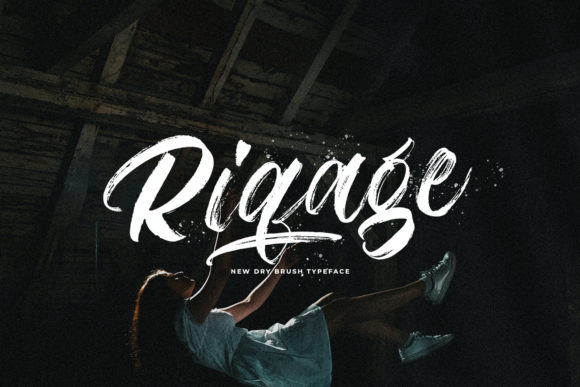
Step into the realm of elegance and grace with Riqage Font, a captivating script font family that exudes a uniquely personal touch. StringLabs, the creative minds behind this masterpiece, have crafted each letter with meticulous care, ensuring that every stroke and curve dances with authenticity and charm. As a script font, Riqage possesses an inherent flow and rhythm that mimics the natural movement of handwriting, evoking a sense of intimacy and connection. With its modern and playful spirit, this font enlivens any project with a touch of whimsy and sophistication.
Immerse yourself in the versatility of Riqage, a font that effortlessly adapts to a myriad of creative endeavors. Whether you're designing logos, crafting invitations, or adding a personal flair to your social media posts, Riqage seamlessly blends with your vision. Its graceful characters lend an air of sophistication to wedding invitations, transforming them into cherished keepsakes. Unleash your creativity and craft eye-catching posters and flyers that demand attention, leaving a lasting impression on your audience. With Riqage as your artistic companion, the possibilities are boundless.
Unleash your inner artist and let Riqage elevate your designs to new heights. Its charming imperfections and natural flow breathe life into any project, capturing the essence of handwritten beauty. Experience the joy of creating personalized signatures that exude elegance and authenticity. Transform your digital communications into works of art, leaving a trail of admiration in your wake. As a signature block font, Riqage adds a touch of distinction to emails, documents, and online forms, ensuring that your presence is felt in every interaction.
Embrace the allure of Riqage, a font that captivates and enchants. Its unique character set, brimming with personality, adds a touch of magic to every word. Each letter dances across the page with a grace and fluidity that draws the eye and captivates the imagination. Allow Riqage to be your secret weapon in creating designs that resonate with your audience, leaving them captivated and eager for more. With its undeniable charm and versatility, Riqage is the perfect choice for designers, artists, and creative professionals seeking a font that speaks volumes.
Don't miss this opportunity to elevate your creative arsenal with Riqage, the font that redefines elegance and sophistication. Its timeless beauty and universal appeal make it a must-have for any font collection. Experience the transformative power of Riqage today and unlock a world of creative possibilities.